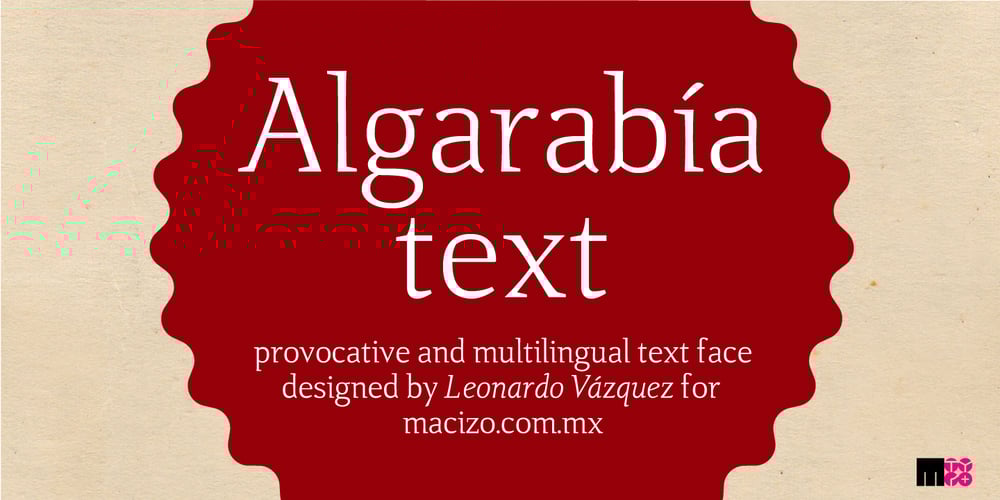
Algarabia Font Family was designed by Leonardo Vazquez and published by Macizo.com.mx. Algarabia contains 4 styles and family package options. • Algarabía “Joy” is a provocative and multilingual text face designed by Leonardo Vázquez.• It was created for a mexican magazine with the same name that uses it as the body text font, and now it’s released for the public.• In 1397, Frederic Goudy’s was asked to draw a face for the exclusive use of the University of California Press at Berkeley. The font was called California. In 1983 a digital version of this typeface was created by Aaron Burns and it was called ITC Berkeley. • Algarabía is inspired by ITC Berkeley, it keeps the calligraphic touch and weight, but it presents certain features in its design that might result unexpected, yet at the same time they are invisible when used as body text and provides the typeface its unique own personality.• Small Caps and Small caps italic, Included in each version.• Ideal for magazines, Art books or any editorial purposes where legibility and originality are needed.